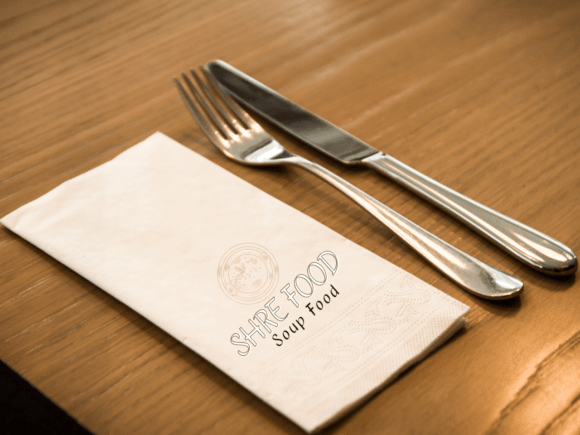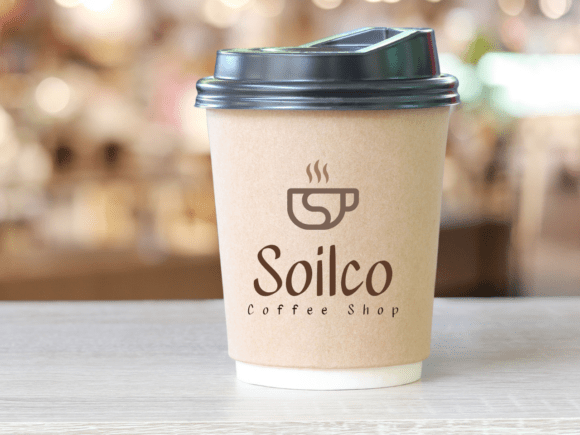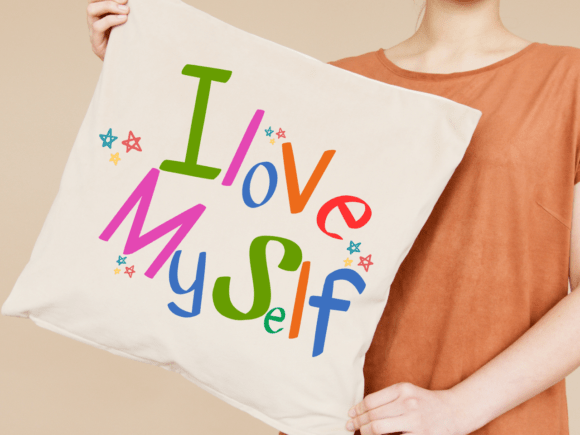
Introduction to Nayaly Font
Have you ever stumbled upon a design project that sparks your creativity and takes your breath away? Maybe it was a stunning logo, a beautiful quote, or a visually appealing branding that caught your attention. For designers, finding the perfect font can be the key to unlocking a truly exceptional creative project. And, we’re excited to share with you a timeless and lovely handwritten font that’s about to become your new go-to design resource – the Nayaly Font.
About Nayaly Font
The Nayaly Font is a high-quality, free download that’s perfect for designers who want to add a personal touch to their designs. With its unique and beautiful touch, every letter comes alive, making it an ideal choice for creating eye-catching logos, branding, and quotes. Whether you’re working on a personal project or a commercial design, this font is sure to elevate your work to the next level.
Unlock the Full Potential of Nayaly Font
What sets Nayaly Font apart is its transparent background, allowing you to easily combine it with other design elements and create a cohesive visual identity. By incorporating this font into your design, you’ll not only add a touch of elegance but also make your design more engaging and memorable. So, why not give Nayaly Font a try and see how it can transform your creative project into a masterpiece?
Key Features of Nayaly Font
- High-quality design resource perfect for creative projects, offering a unique and stylish touch.
- Features a transparent background, allowing for seamless integration into your design without any distracting backgrounds.
- Offers a range of font sizes and resolutions, from 72 dpi to 300 dpi, making it suitable for various design applications.
- Unique characteristics include a modern and elegant design style, making it ideal for branding, logos, and typography-based projects.
- Designed to be highly legible and visually appealing, making it an excellent choice for designers seeking a high-quality design resource.
Honest Review: Nayaly Font
I recently stumbled upon the Nayaly Font, and I must say it’s a fantastic addition to my design resources. As a designer, I’m always on the lookout for high-quality fonts that can elevate my creative projects.
Here are some things that work well with the Nayaly Font: ✨ It’s available for free download, making it an excellent option for designers working on a budget. ✨ The font comes with a transparent background, which gives designers flexibility when working with complex designs. ✨ The Nayaly Font is well-suited for various design projects, including branding, digital media, and print materials.
- Transparent background for added design flexibility
- Suitable for various design projects, including branding and digital media
However, there are a few limitations to consider: ⚠️ The font may not be suitable for projects that require a more traditional or classic look. ⚠️ The font’s unique style may not appeal to all designers or clients.
Overall, I’m impressed with the Nayaly Font. Its high quality, free availability, and design flexibility make it an excellent addition to any designer’s toolkit. I would definitely recommend it to fellow designers working on creative projects.
Tips for Getting the Most Out of Nayaly Font
Here are a few tips for getting the most out of Nayaly Font:
- Use it for creative projects such as logos, branding materials, and social media graphics.
- Take advantage of its high-quality design to create eye-catching presentations and documents.
- Combine Nayaly Font with a transparent background for a clean and modern look.
Nayaly Font is perfect for a variety of design projects, including:
- Social media graphics and posts.
- Presentations and reports.
- Logos and branding materials.
- Blog posts and articles.
Nayaly Font is a high-quality design resource that is available for free download. With its transparent background and creative style, it’s perfect for a wide range of design projects.
Alternatives to Nayaly Font
Alex Brush Font is a high-quality, handwritten font perfect for creative projects that require a touch of elegance. It features a smooth, flowing design with a transparent background, making it ideal for use on various design elements. When to use: wedding invitations, greeting cards, or any design project that requires a romantic touch. Compared to Nayaly Font, Alex Brush Font has a more elegant and refined look, making it suitable for more formal designs.